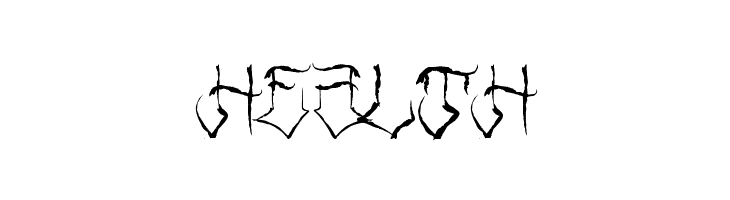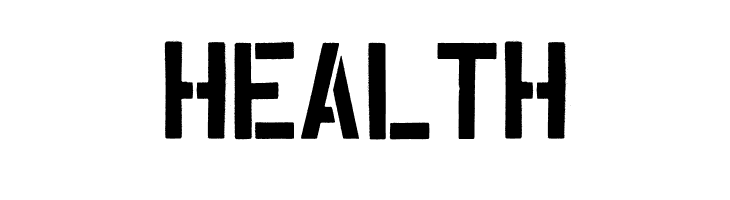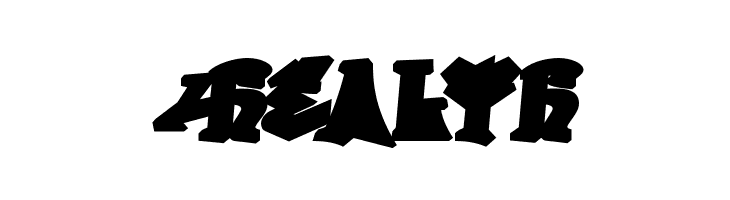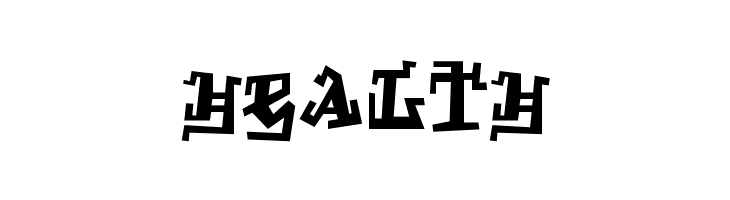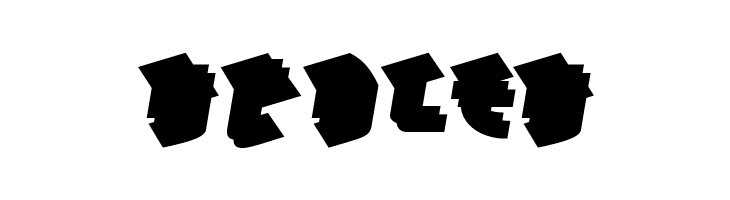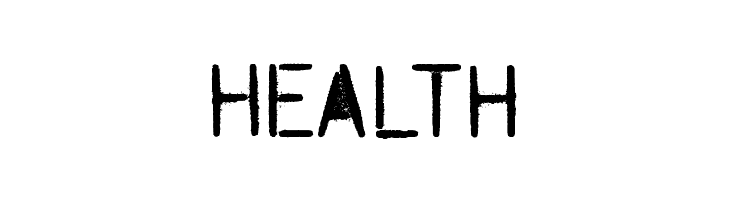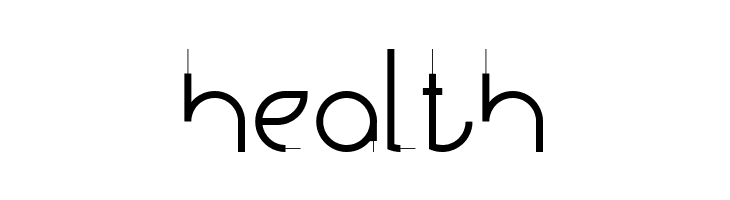
An edgy, graffiti-inspired font with sharp, angular lines.
A bold, stencil-style font with an industrial, urban aesthetic.
A bold, graffiti-inspired font with sharp, angular edges.
A bold, graffiti-inspired font with sharp angles and dynamic forms.
A bold, geometric font with a three-dimensional, graffiti-inspired style.
A rugged, stencil-like font with a distressed, spray-painted texture.
A modern, geometric font with a futuristic and versatile design.
A bold, grunge-style font with a distressed, edgy appearance.
A bold, distressed font with a glitch-like, digital interference style.
A bold, distressed stencil font with an industrial and gritty aesthetic.